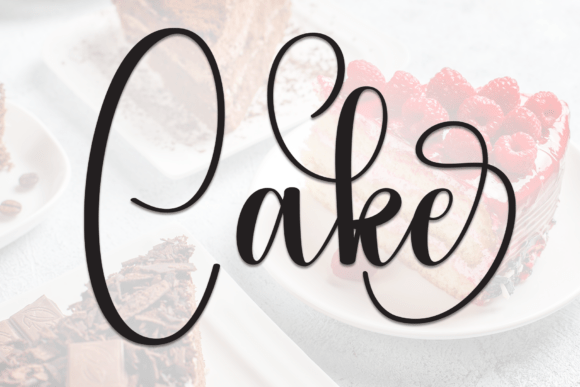
Cake Font: The Ultimate Guide to Elegance and Sophistication in Typography
In the world of typography, few fonts manage to convey the perfect blend of elegance, charm, and sophistication. However, Cake Font stands out as a shining example of a stylish handwritten script font that exudes refinement and poise. With its fluid, graceful strokes, Cake Font has become a popular choice for designers and brands looking to add a personal and sophisticated touch to their visual identity.
What is Cake Font?
Cake Font is a beautiful, handwritten script font that boasts smooth curves and a natural flow, creating a timeless and refined look for any design. Its fluid strokes and elegant letterforms make it perfect for a wide range of applications, from branding and invitations to stationery and digital media.
Key Features of Cake Font
- Fluid and Graceful Strokes: Cake Font’s fluid strokes give it a natural, handwritten feel that’s both elegant and charming.
- Smooth Curves and Natural Flow: The font’s smooth curves and natural flow create a refined, sophisticated look that’s perfect for high-end branding and design.
- Timeless and Refined: Cake Font’s classic design ensures that it will remain a stylish choice for years to come, without ever looking dated or trendy.
- Perfect for Branding and Invitations: The font’s elegant, sophisticated feel makes it ideal for branding, invitations, and stationery, where a personal touch is essential.
Uses of Cake Font
Cake Font’s versatility and elegance make it suitable for a wide range of design applications, including:
- Branding: Use Cake Font to create a sophisticated, high-end visual identity for your brand, perfect for luxury goods, fashion, and hospitality.
- Invitations: Add a touch of elegance and refinement to your invitations, perfect for weddings, formal events, and parties.
- Stationery: Use Cake Font to create beautiful, sophisticated stationery, including letterheads, business cards, and thank-you cards.
- Digital Media: Cake Font is also perfect for digital media, including social media graphics, blog headers, and website titles.
Benefits of Using Cake Font
Using Cake Font in your designs offers numerous benefits, including:
- Elegance and Sophistication: Cake Font adds a touch of elegance and sophistication to any design, perfect for high-end branding and luxury goods.
- Personal Touch: The font’s handwritten feel gives designs a personal, human touch that’s perfect for building connections with customers and clients.
- Versatility: Cake Font is versatile and can be used in a wide range of design applications, from branding and invitations to digital media.
- Timeless Design: Cake Font’s classic design ensures that it will remain stylish and relevant for years to come.
Tips for Using Cake Font Effectively
To get the most out of Cake Font, follow these tips:
- Use it Sparingly: Use Cake Font sparingly to add a touch of elegance and sophistication to your designs, rather than overusing it.
- Pair it with Other Fonts: Pair Cake Font with other fonts to create visual interest and add depth to your designs.
- Experiment with Colors: Experiment with different colors to find the perfect match for your brand or design.
- Pay Attention to Kerning: Pay attention to kerning to ensure that the font looks elegant and refined.
In conclusion, Cake Font is a stylish handwritten script font that exudes elegance and charm with its fluid, graceful strokes. Perfect for branding, invitations, and stationery, it adds a personal and sophisticated touch to any design. With its smooth curves and natural flow, Cake Font creates a timeless, refined look that’s perfect for high-end branding and luxury goods. By following the tips outlined above, you can use Cake Font effectively to elevate your designs and add a touch of elegance and sophistication.
FAQs About Cake Font
- What is Cake Font? Cake Font is a stylish handwritten script font that boasts fluid, graceful strokes and a natural flow.
- What is Cake Font used for? Cake Font is perfect for branding, invitations, stationery, and digital media, where a personal and sophisticated touch is essential.